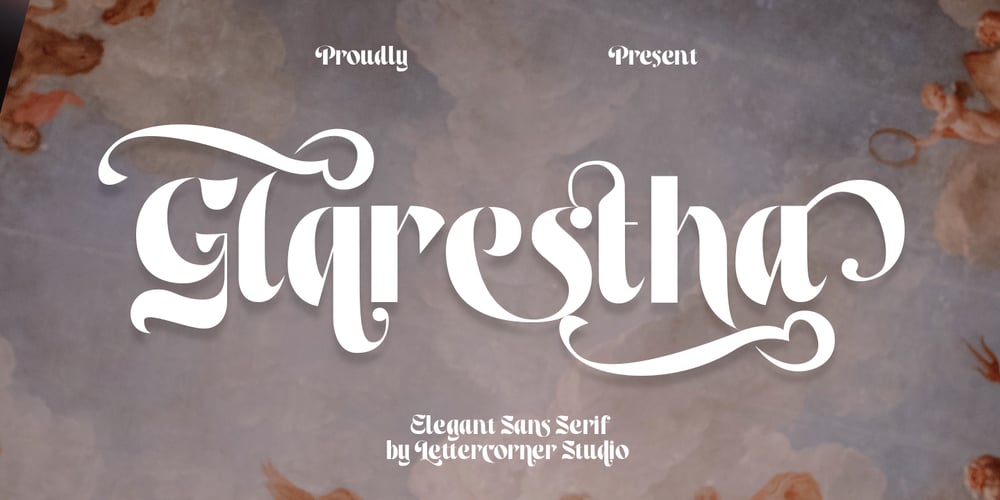
Glarestha Font Family was designed by Muhammad Afif Ersya and published by Mevstory Studio. Glarestha contains 1 styles and family package options. Glarestha is a modern high-contrast display font with bright positive character. Clean forms and a bit curly letter ends creates a friendly mood in any designs.It comes with Regular version, Opentype features (stylistic alternates and standard ligatures). The easiest way to get alternate is to add number after character (for example A2, A3) or add Underscore after end character (for example a r). The full set of alternates you can find in font presentation.Faery Dream font is perfect for headlines, magazines, logotypes, food package, advertising and many others.Multilingual Support